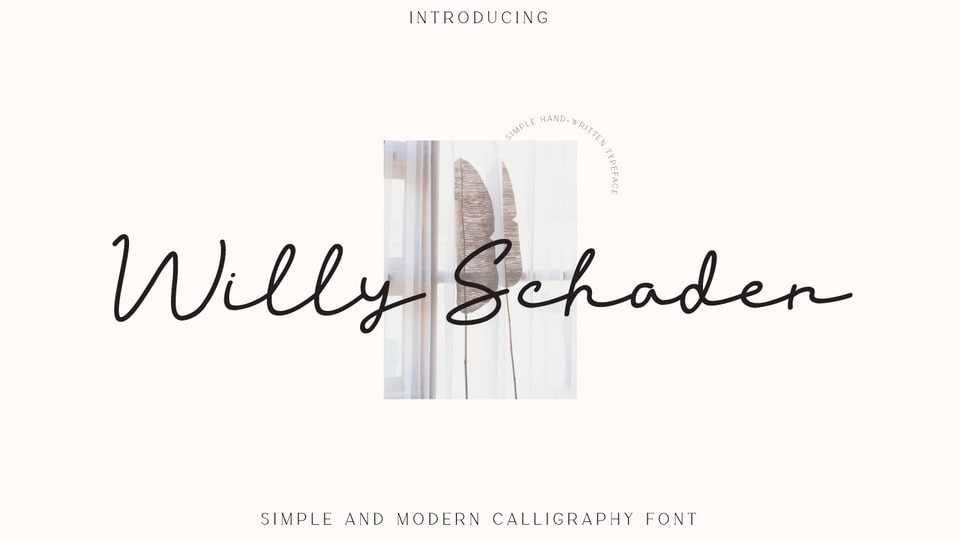
Download Willy Schaden font, a beautiful handwritten monoline script typeface. Great for wedding invitations or greeting cards, logos, branding materials.